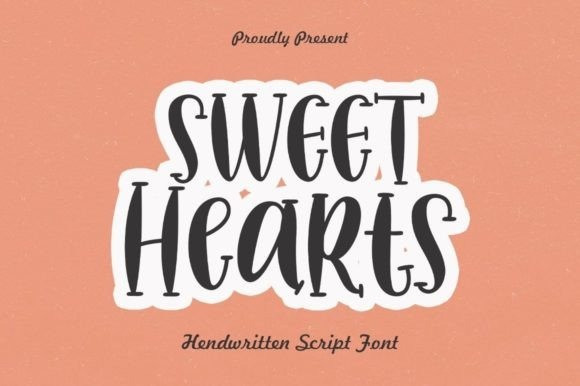
Sweet Hearts Font
Sweet Hearts Display Font is a beautiful script font. The shape is modern and unique and the writing style is very natural. You can create many beautiful typographic designs in an instant like branding, web design and editorial, prints, crafts, quotes. It’s great for logotypes, wedding invitations, romantic cards, labels, packaging, the spelling of names, and others.